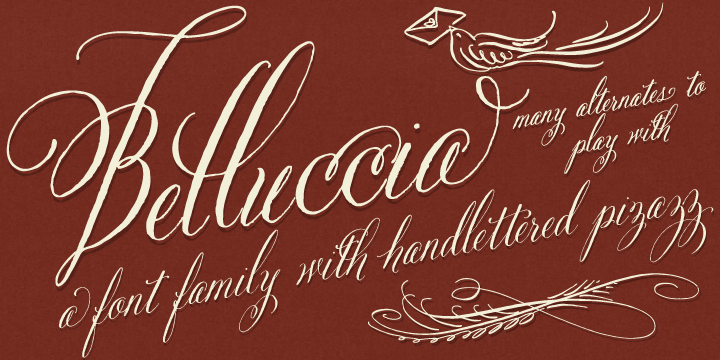
Belluccia
Belluccia™ is a font dedicated to premium art and art lovers. The font makes a perfect choice for those who appreciate creativity. Created by Debi Sementelli, Brian J. Bonislawsky, the font is a fabulous choice for any project demanding prim custom hand lettered and flourished look. The Belluccia typeface is appreciated for its proficiency to turn on … Read more